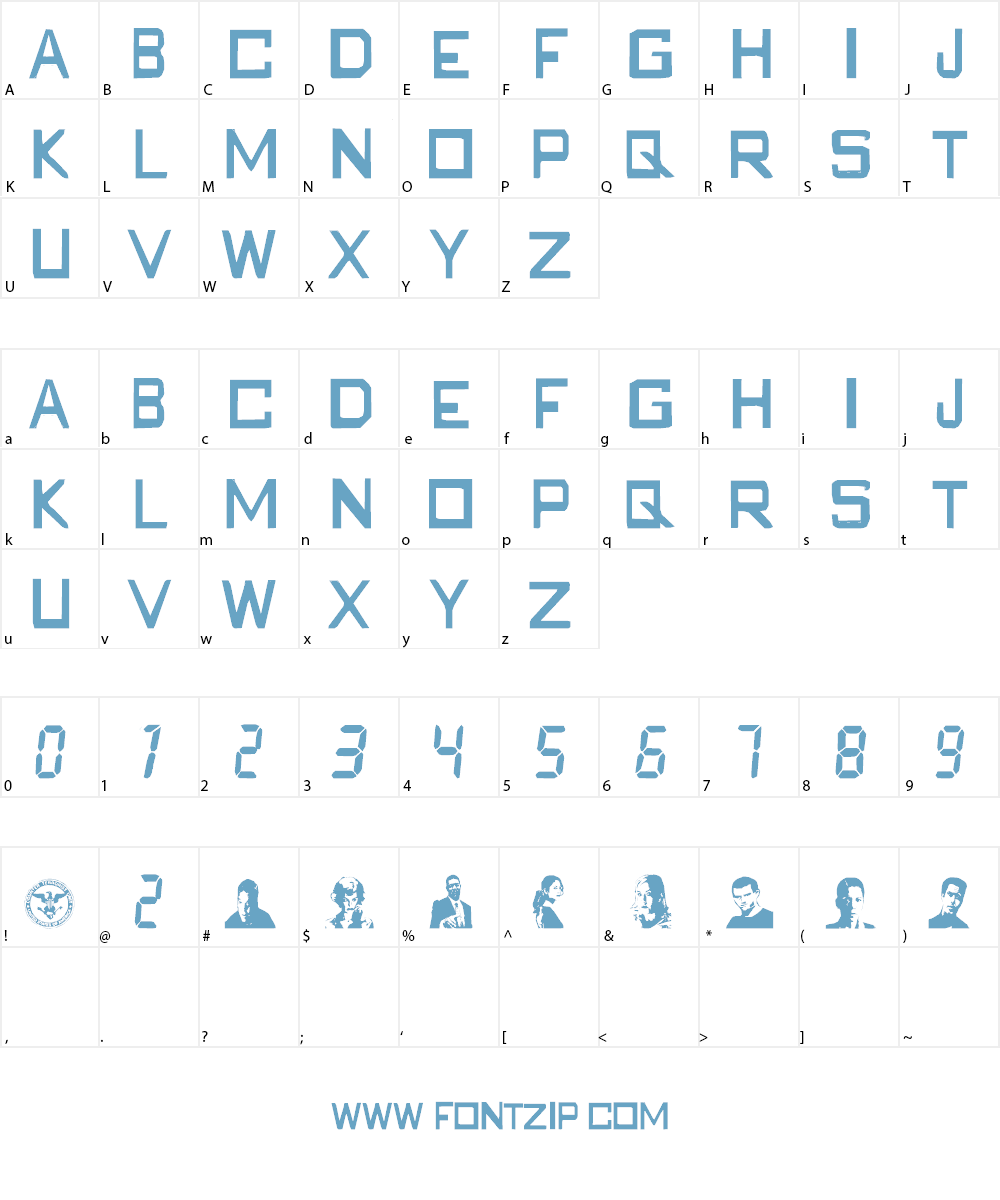
Features letters in the style of the 24 title sequence. Digital numbers, and character faces as the upper case numbers. An early experiment in font making, still here for nostalgic reasons only.